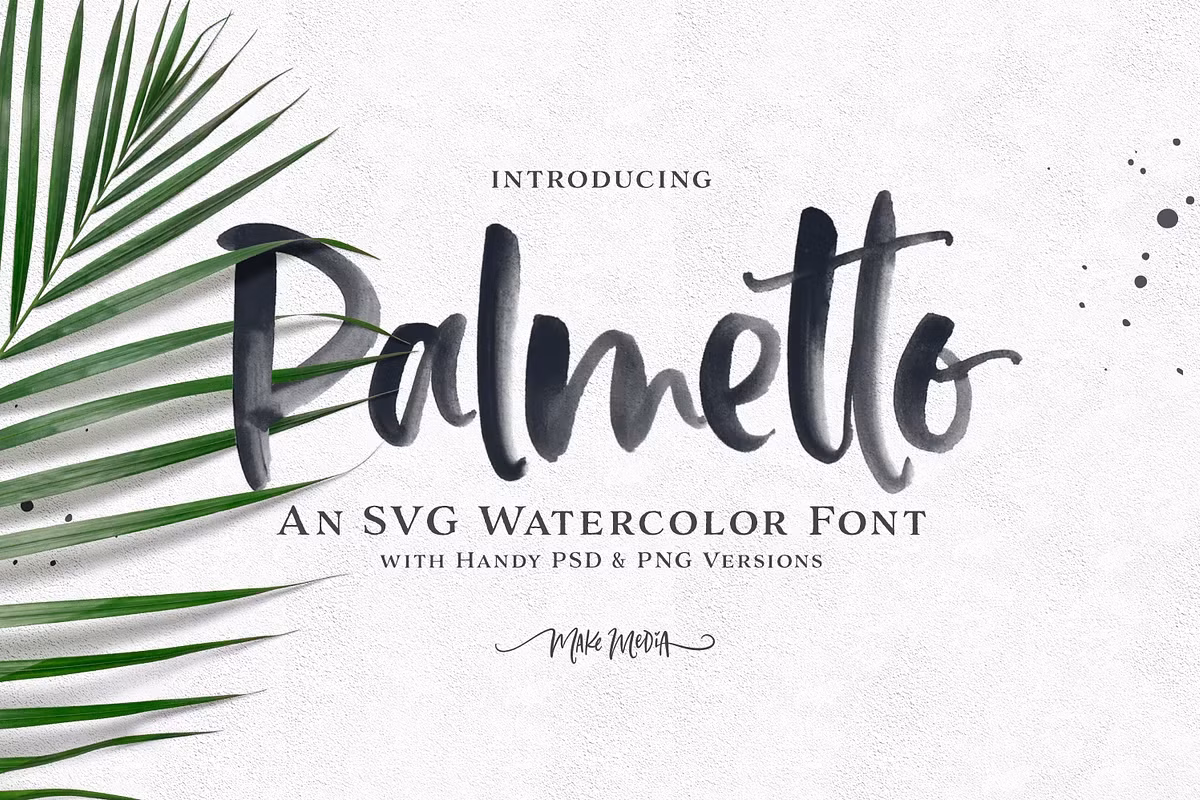
Palmetto SVG Font Free Download is a beautiful hand-lettered script typeface with a textured, brush-stroke style that gives it a natural, authentic feel. Perfect for adding a personal touch to your designs, this SVG font captures the look of real, painted brushwork, making it ideal for logos, invitations, branding, social media graphics, and more.
The unique SVG format allows the font to maintain its high-quality brush textures, giving your typography a handmade and organic appearance. Whether you're working on creative marketing materials or designing a charming logo, Palmetto adds an artistic, free-spirited vibe to any project.